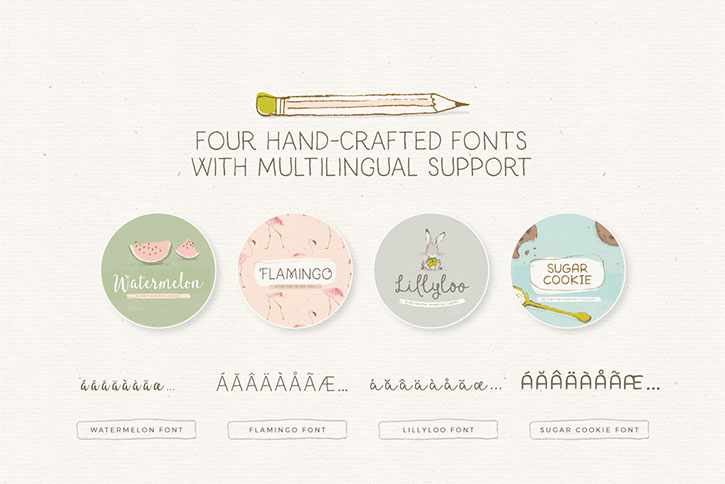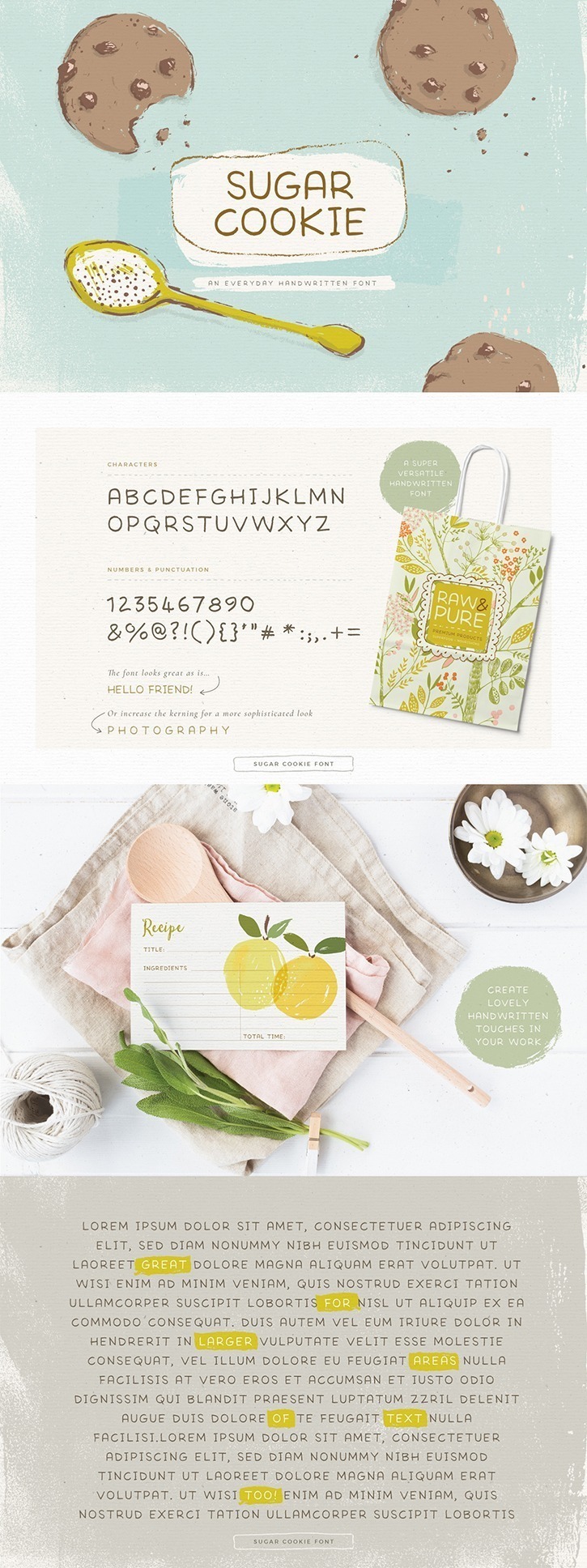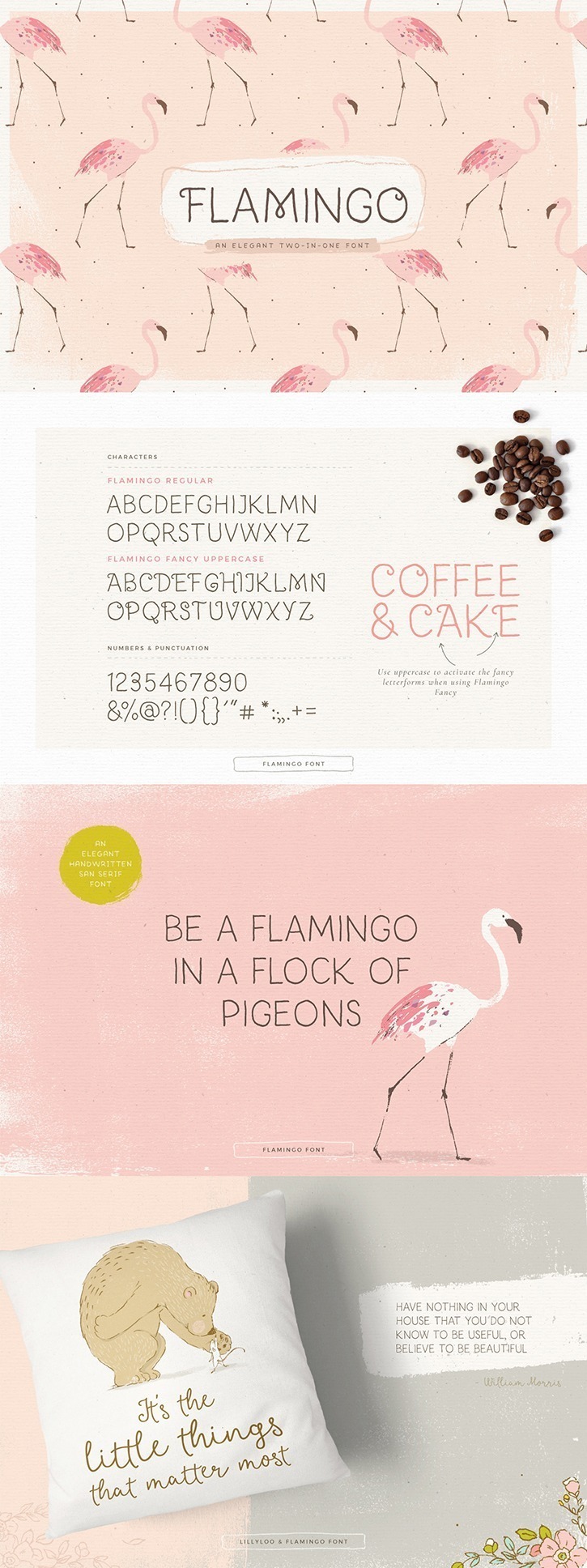
Say hello to The 4-in-1 Playful Hand-Lettered Font Bundle, bursting with personality and whimsy!
Featuring four handcrafted fonts, this playful versatile bundle includes delightful scripts and easy-to-read san serif typefaces. An all-in-one solution for adding a lovely hand-lettered touch to your work.
This font bundle is perfect for your branding, invitations, planners and printables, blogs, packaging, overlays and so much more! I’ve taken care in creating easy-to-read fonts that still bring a lovely hand crafted touch.
Adding an authentic hand-lettered personal touch to your projects couldn’t be easier!
The adorable hand lettered fonts you’ll receive are:
• Lillyloo – a delightful monoline script
• Sugar Cookie – an everyday san serif
• Watermelon – a sweet & playful script
• Flamingo Regular & Fancy – an elegant two-in-one san serif
The 4-in-1 Playful Hand-Lettered Font Bundle
Say hello to The 4-in-1 Playful Hand-Lettered Font Bundle, bursting with personality and whimsy!
The playful fonts included are:
• Lillyloo – a delightful monoline script
• Sugar Cookie – an everyday san serif
• Watermelon – a sweet & playful script
• Flamingo Regular & Fancy – an elegant two-in-one san serif